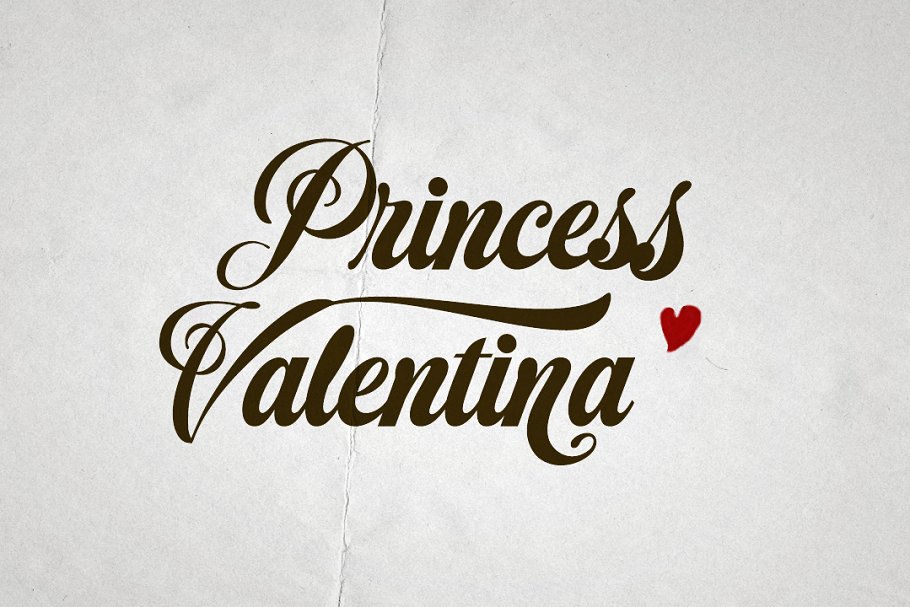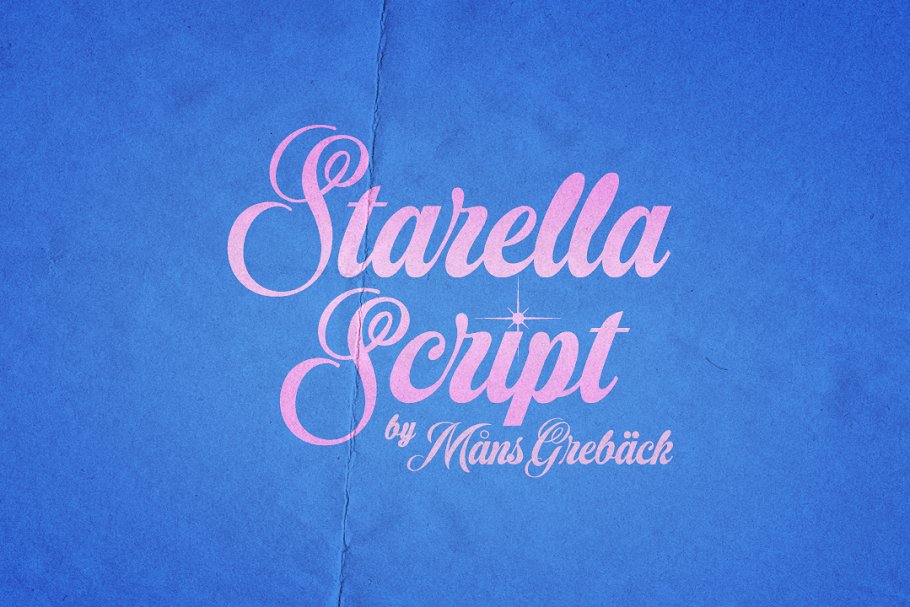
Starella Script Font
Starella Script is a decorative typeface created by Måns Grebäck.
It is bold, beautiful and works perfectly for majestic logotypes and graphics.
Starella Script also includes alternate and swash letters, to give extra flexibility. Use underscore to create a swash, example: S_tarella
The typeface has support for all European, Latin based languages.